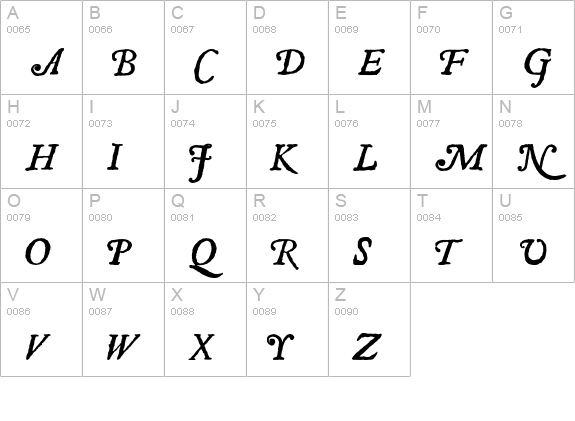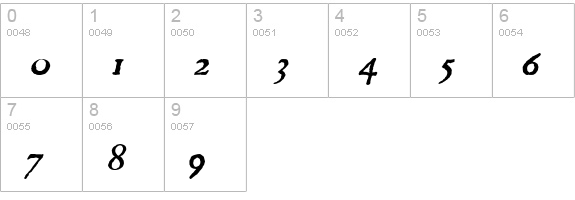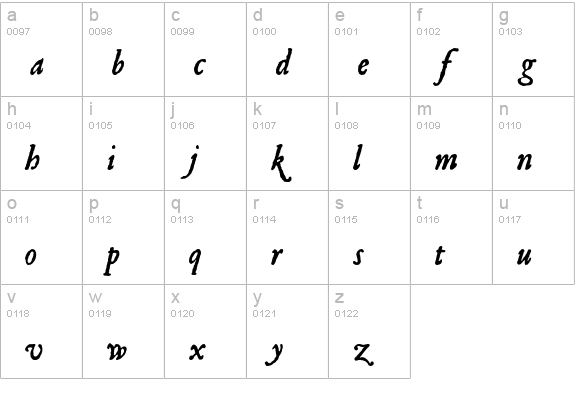
Roman Antique Italic is a distinctive, italic variant in the Roman typeface family \xE2\x80\x94 well suited to design and typography projects.
Roman Antique Italic is a stunning and classic serif font that exudes elegance and sophistication. With its timeless design and graceful curves, this typeface is perfect for adding a touch of sophistication to any project. The italicized style gives it a unique and stylish flair, making it ideal for use in headings, titles, and other prominent text. The Roman Antique Italic font is not only visually appealing but also highly versatile, suitable for a wide range of design applications. Whether you're creating invitations, flyers, logos, or any other design project, this font will elevate your work to the next level. And the best part? Roman Antique Italic is available for free download at FontsMarket.com. So, you can easily access this exquisite font and enhance your designs without any cost. Don't miss out on this opportunity to add a touch of timeless beauty to your projects with Roman Antique Italic font.